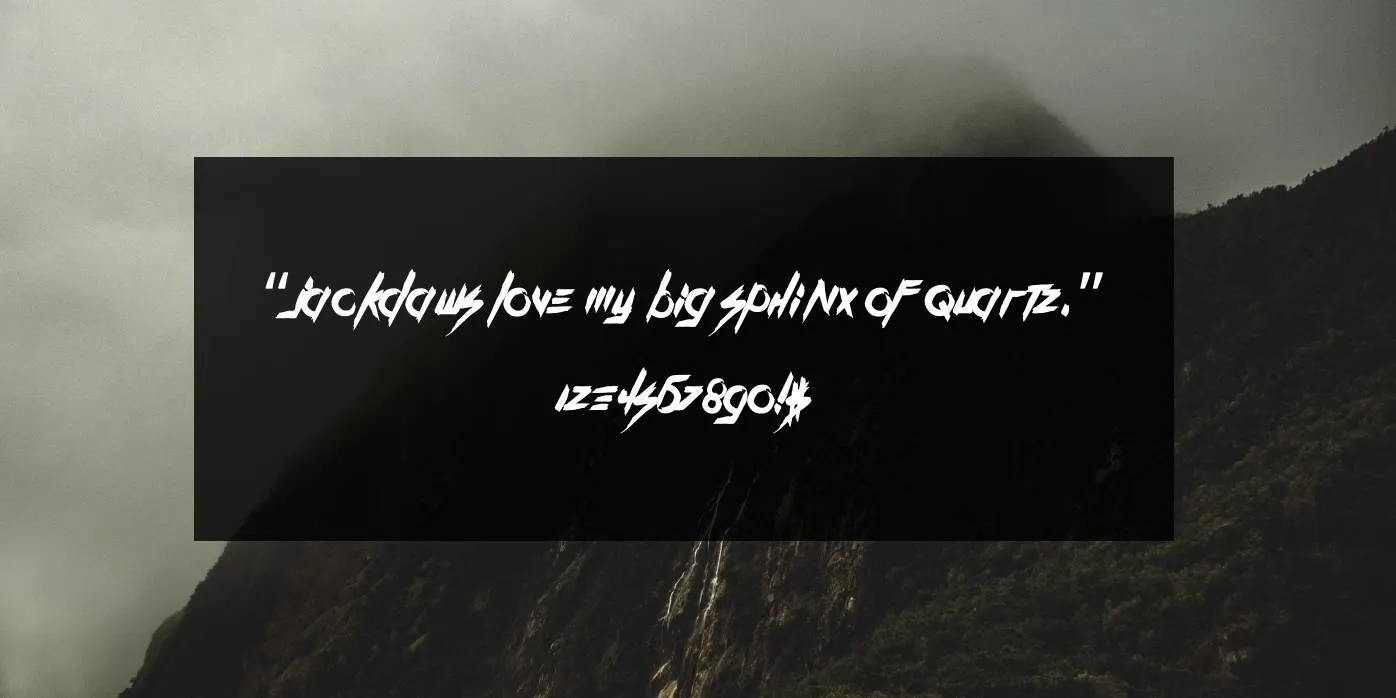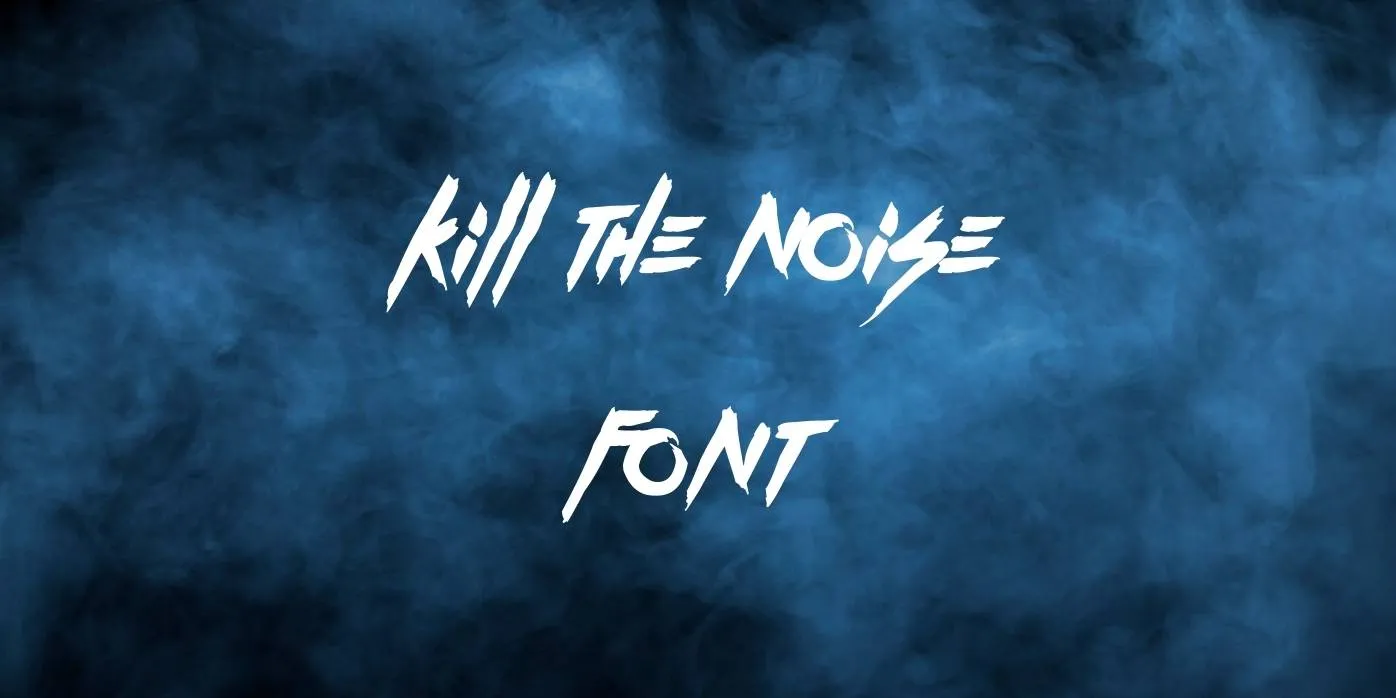
Kill The Noise Font
Kill The Noise Font belongs to the Script font family and was designed by Chequered Ink. The design of the font was inspired by the movie. The font is available in two styles, regular and italic. Kill The Noise Font has a unique design that makes it stand out from other fonts.